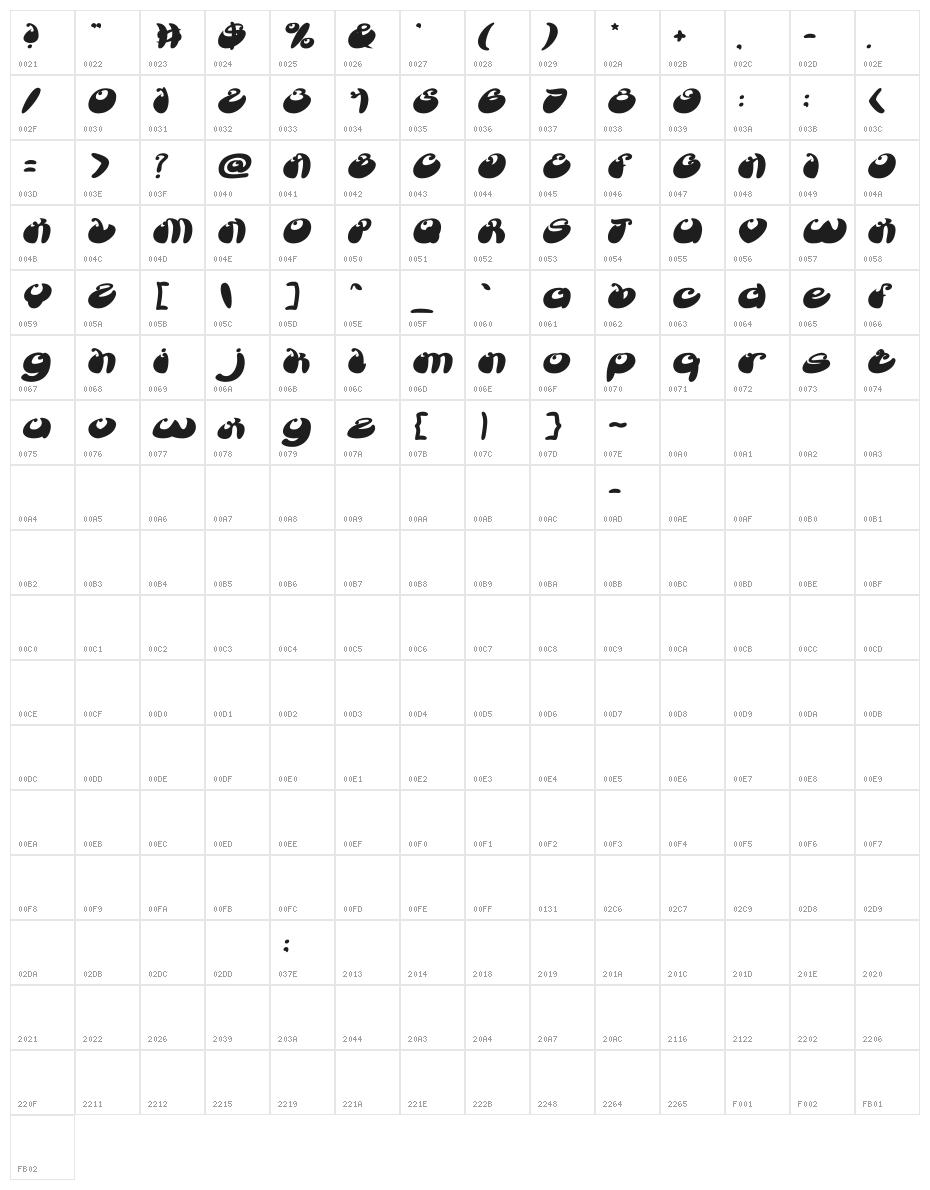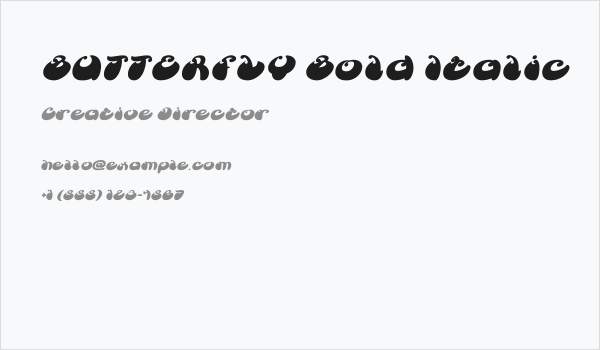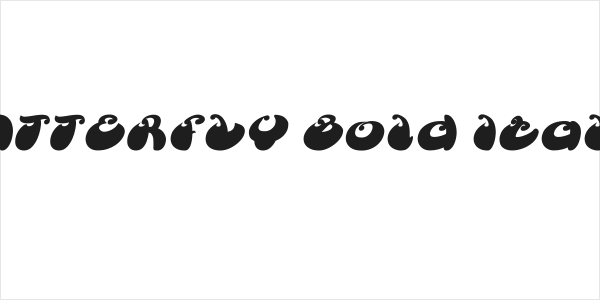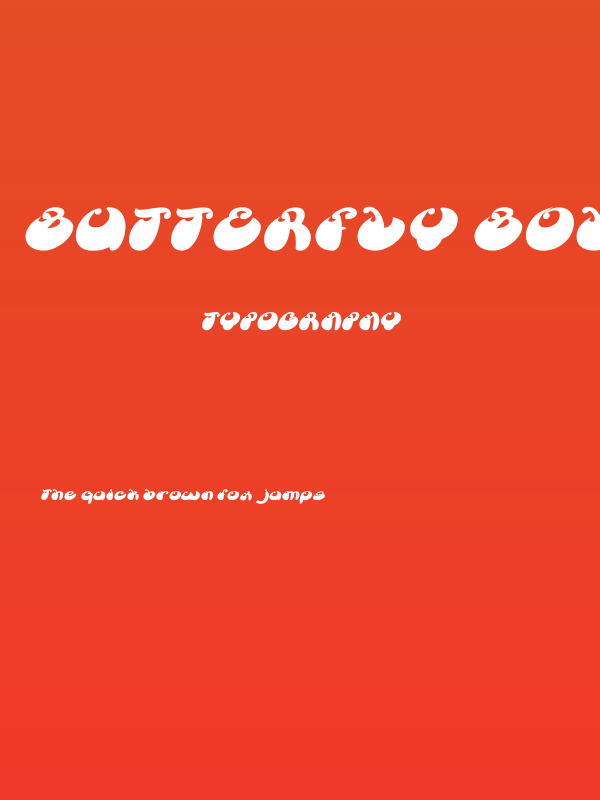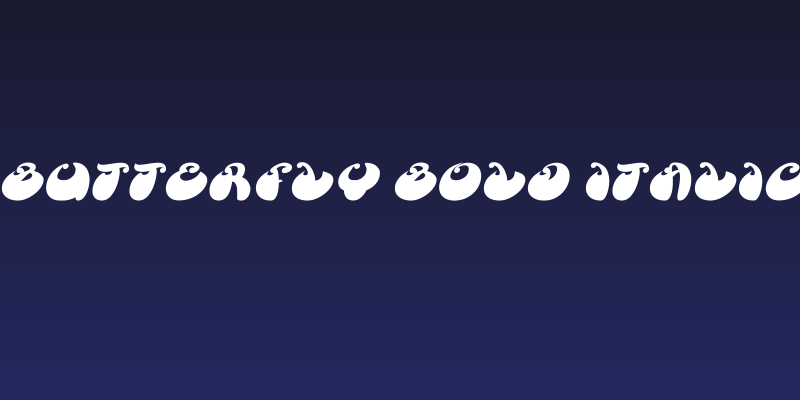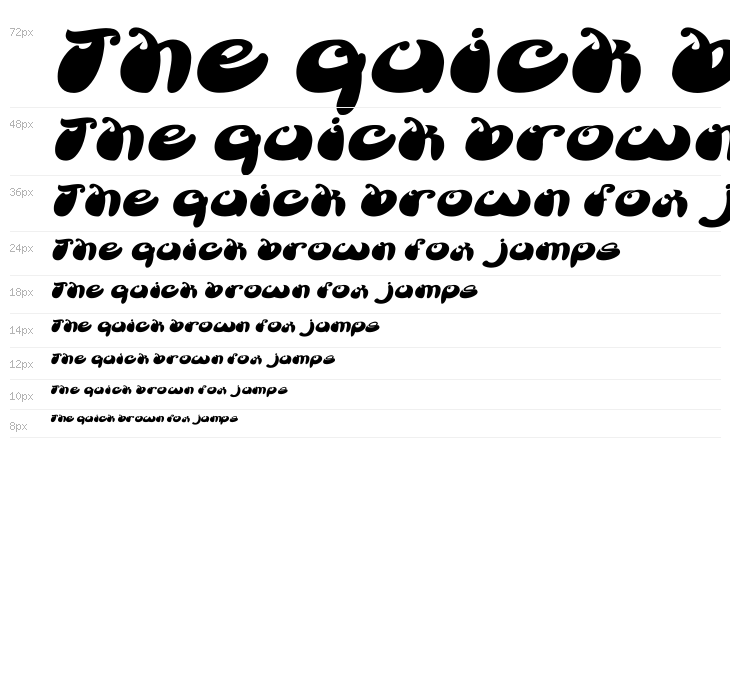
BUTTERFLY Bold Italic Font
BUTTERFLY Bold Italic Description
This font features a bold and italicized style with a playful and whimsical appearance. The characters are rounded and bulbous, creating a sense of movement and fluidity. The strokes are thick and consistent, contributing to a strong visual impact. Each letter has a unique, almost cartoon-like quality, making it stand out in any design. The numbers and special characters maintain the same playful aesthetic, ensuring consistency across all text elements. This font is ideal for projects that require a fun and engaging look, such as children's books, playful branding, or creative posters.
| Proposed Projects | Ideal for children's books, playful branding, creative posters, and whimsical designs. |